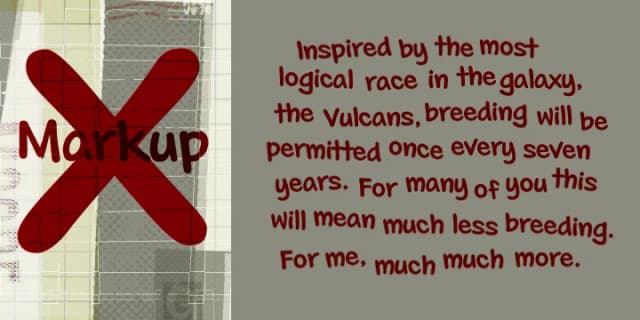
About Kosal says hy Font
Kosal says hy is a script & handwritten font designed by Philatype. It includes 111 glyphs, a regular weight, TTF (TrueType) format, and 104 languages. Kosal says hy is free to download; check the license details on this page before commercial use. Script & handwritten fonts like Kosal says hy work best for wedding invitations, greeting cards, signatures, and elegant branding.
Kosal says hy Font is a script font that shines as a display or heading face. Pair it with a clean sans-serif or serif font for body text β the contrast creates a clear hierarchy while the two styles stay balanced and easy to read.
Kosal says hy Font
by Philatype
Kosal says hy Font is a script handwritten typeface by Philatype, ideal for logos, invitations, branding, and creative projects.